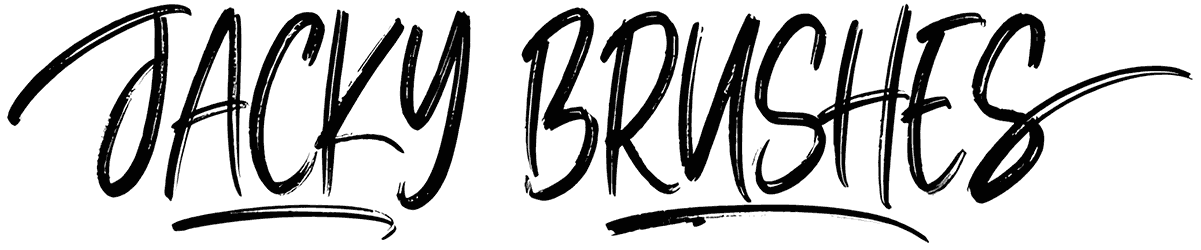
Jacky Brushes Font
Are you working on a cool urban project and want to make it more attractive? This brush font, with its realistic and artistic style, can cause this to happen. Even if Jacky Brushes font doesn’t support lowercase letters, as a unique handwritten font, it can be a distinct display for a lot of layouts, such as banners, tattoos, apparel, packaging, and so forth.